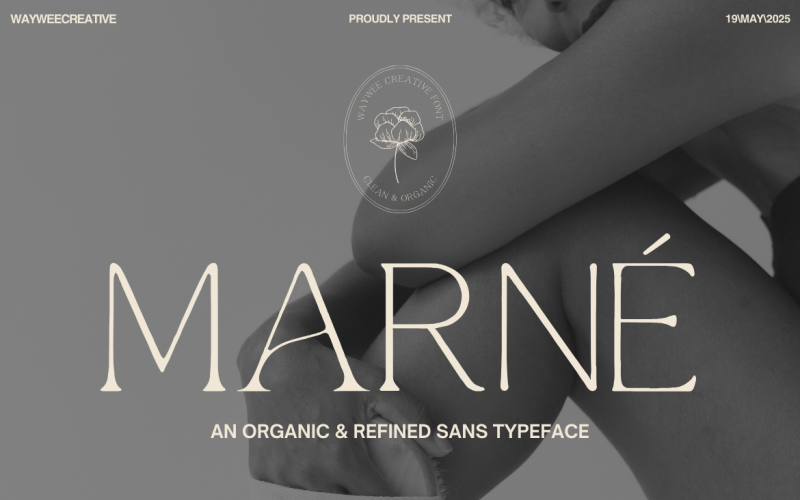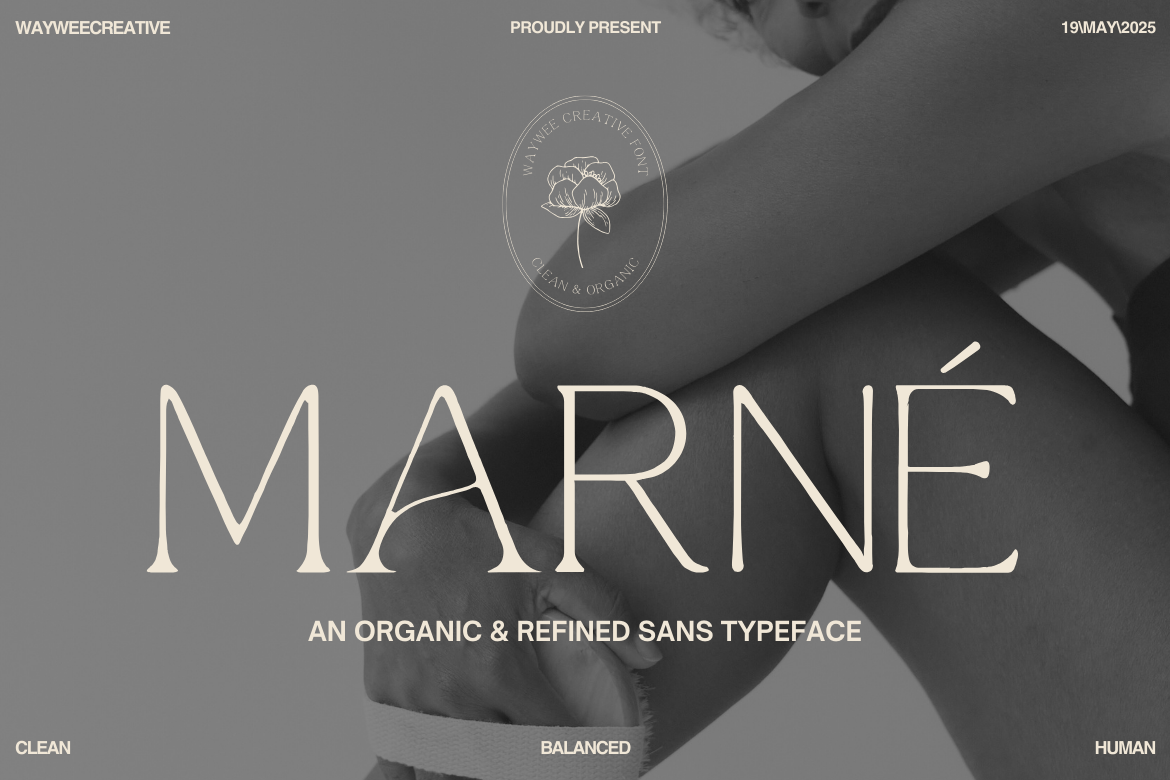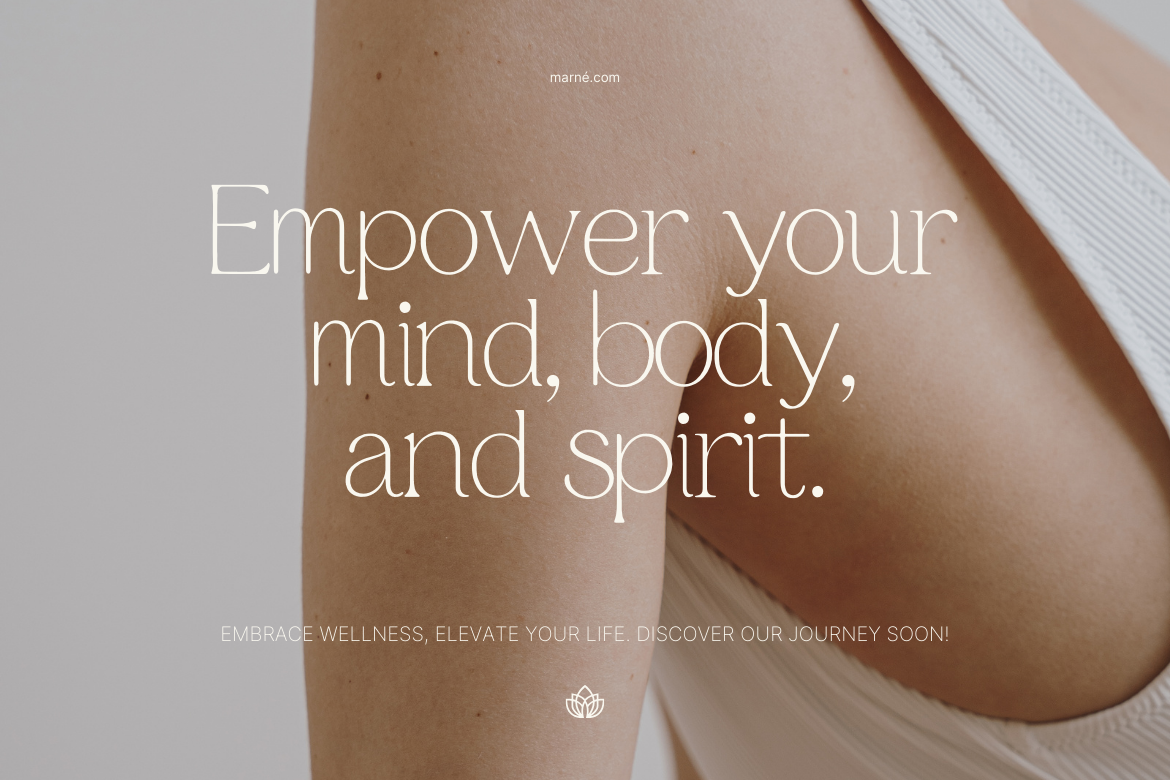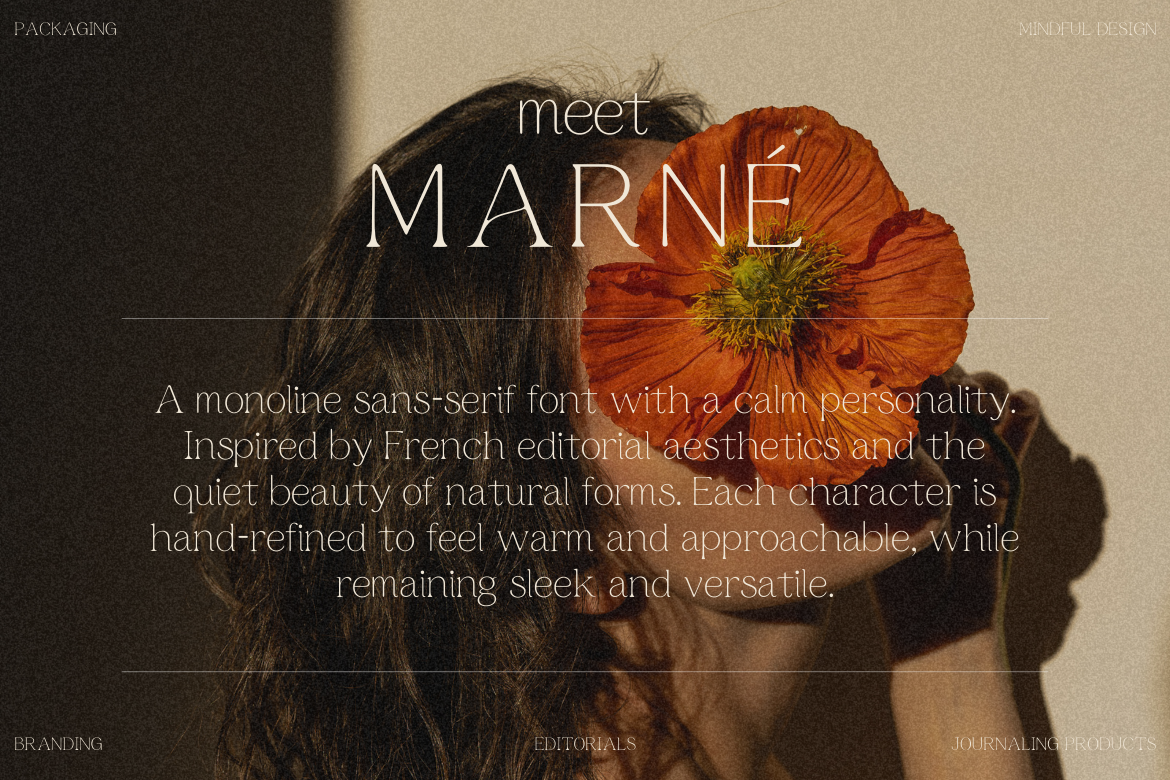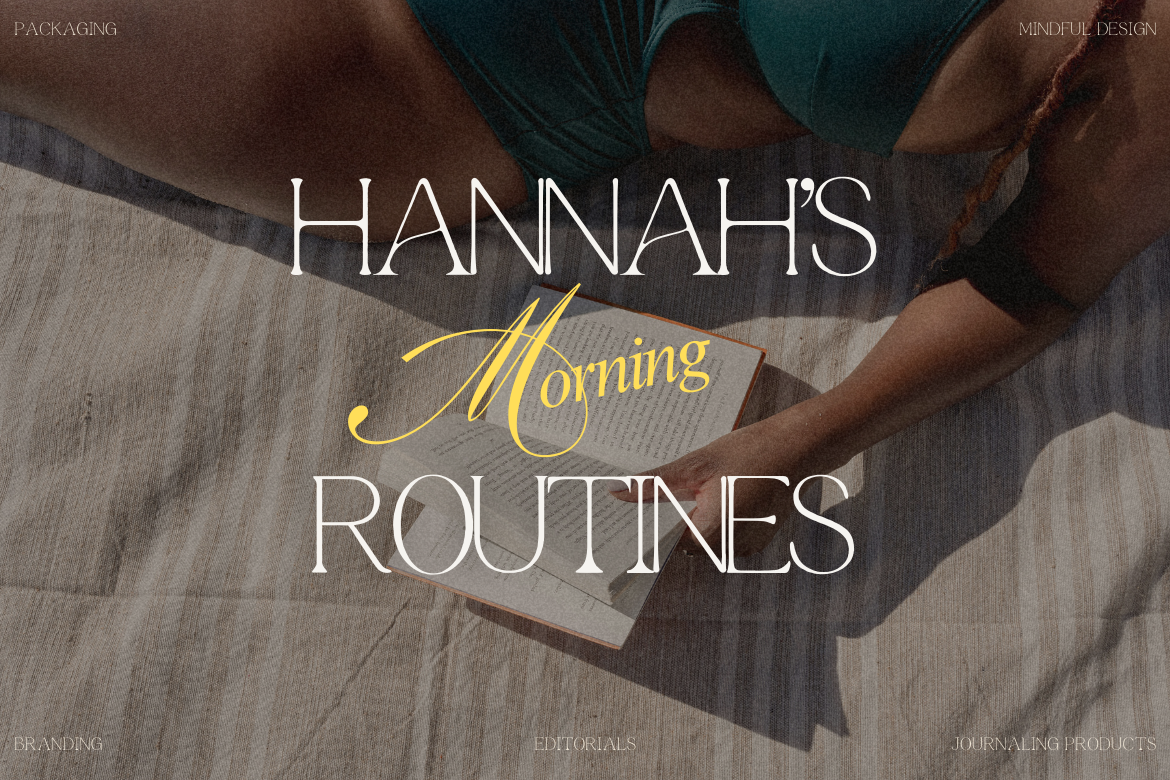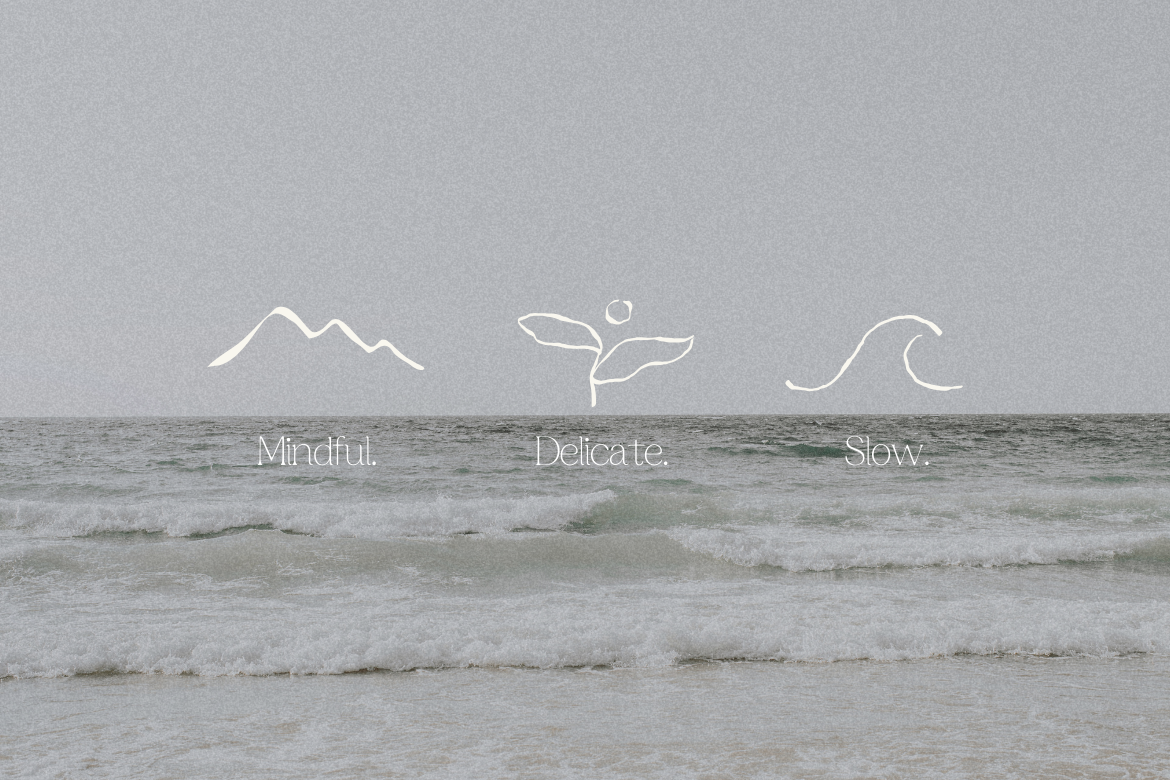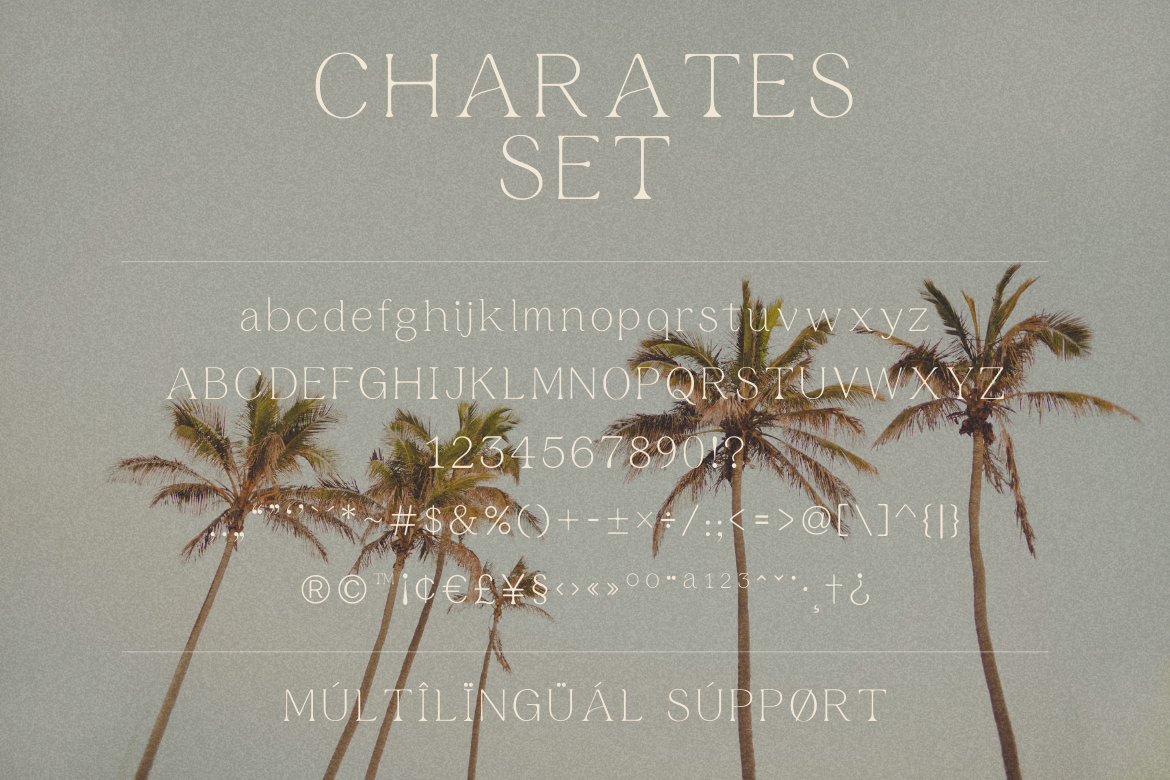
MARNÉ – Modern Organic Sans Serif Font
MARNÉ is a clean and minimalist sans serif font with subtle organic curves and timeless elegance. Inspired by French editorial design and natural simplicity, MARNÉ blends structure and softness, making it the perfect typeface for modern branding, packaging, logo design, social media templates, and editorial layouts.
Designed with clean lines and balanced proportions, MARNÉ adds a calm and approachable feel to any project. Each letterform is crafted to be versatile, whether you're creating a skincare label, lifestyle blog, or mindful wellness brand.
- Uppercase & Lowercase Letters (A–Z, a–z)
- Numbers & Punctuation
- Ligatures & Stylistic Alternates
- Multilingual Support (Western European Languages)
- Branding & Logo Design
- Packaging & Labeling
- Instagram & Canva Templates
- Editorial & Magazine Typography
- Web Design & UI Projects
Elegant sans serif font for branding, logos, packaging, and editorial. Add MARNÉ to your design toolkit and bring a refined organic touch to your next creative project.